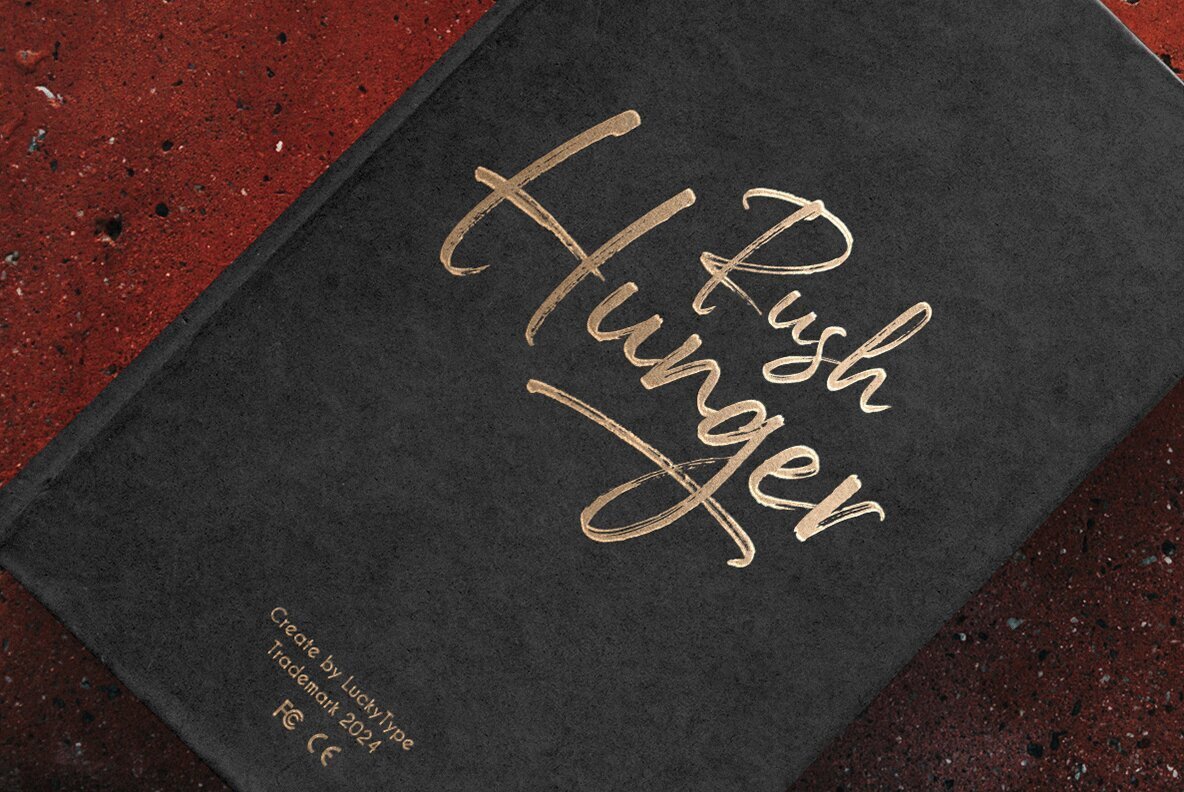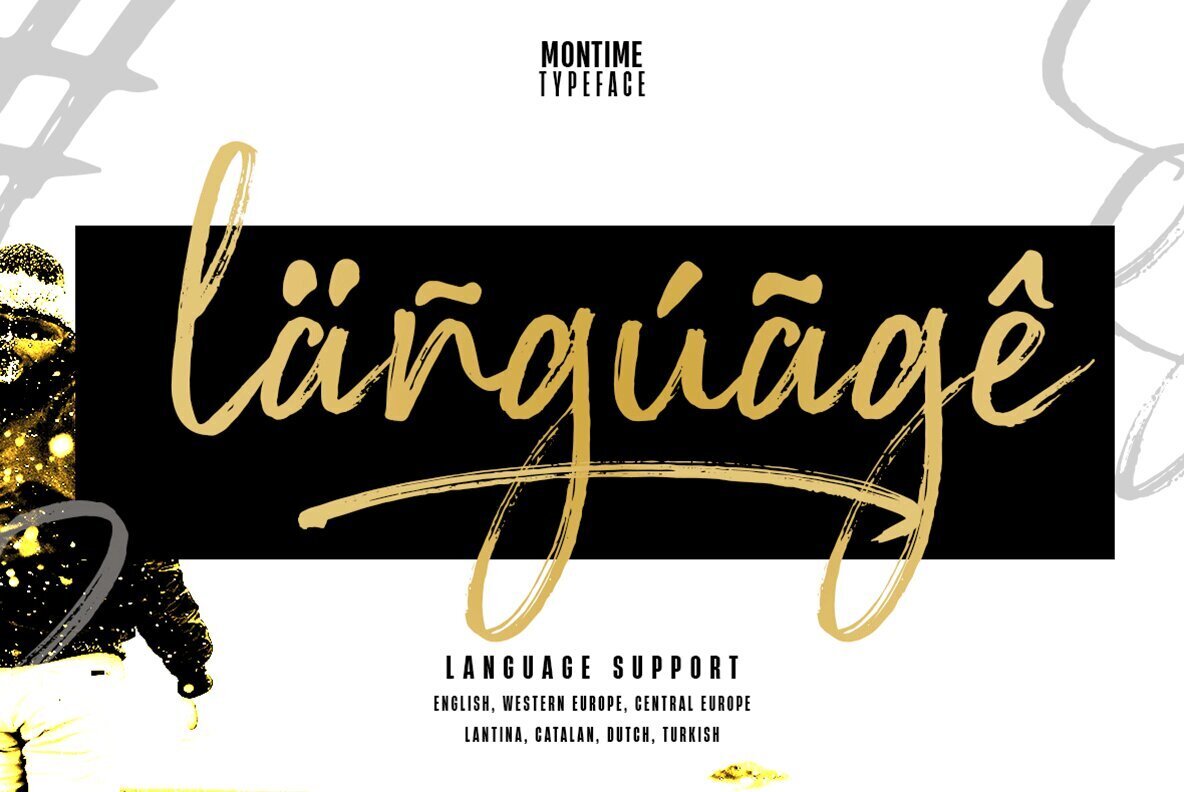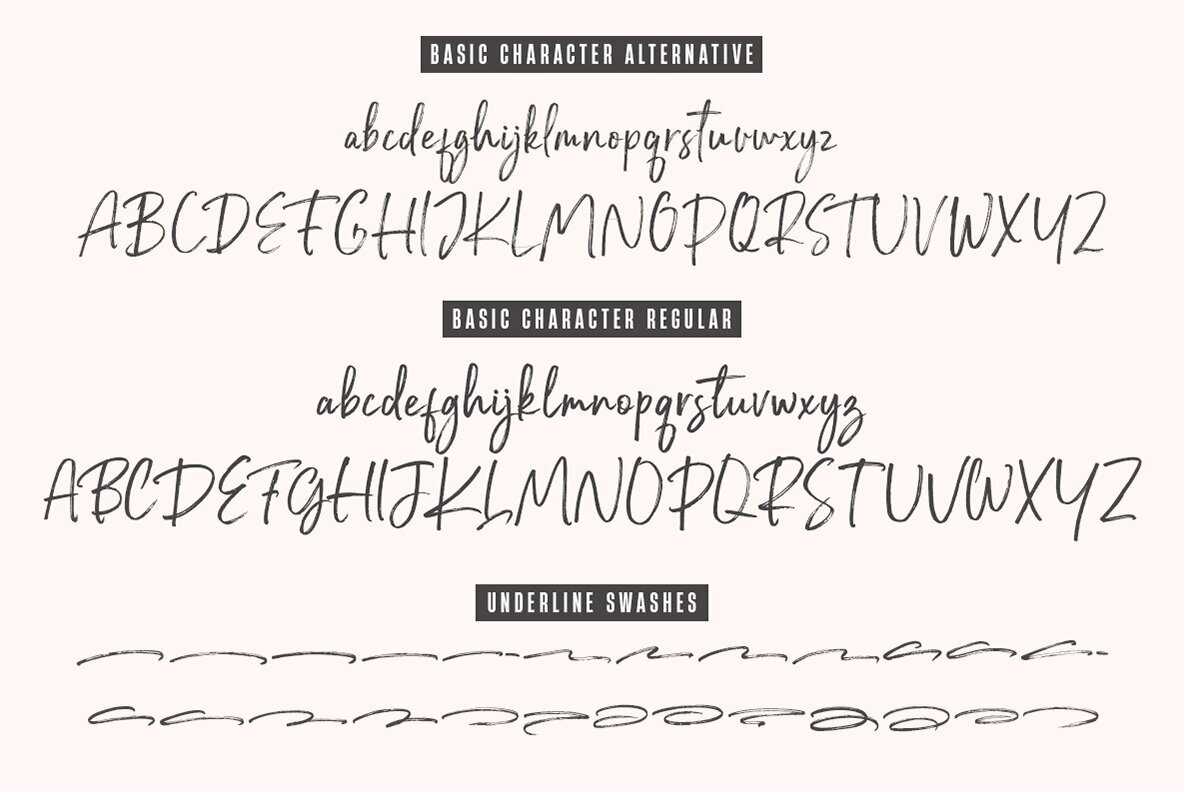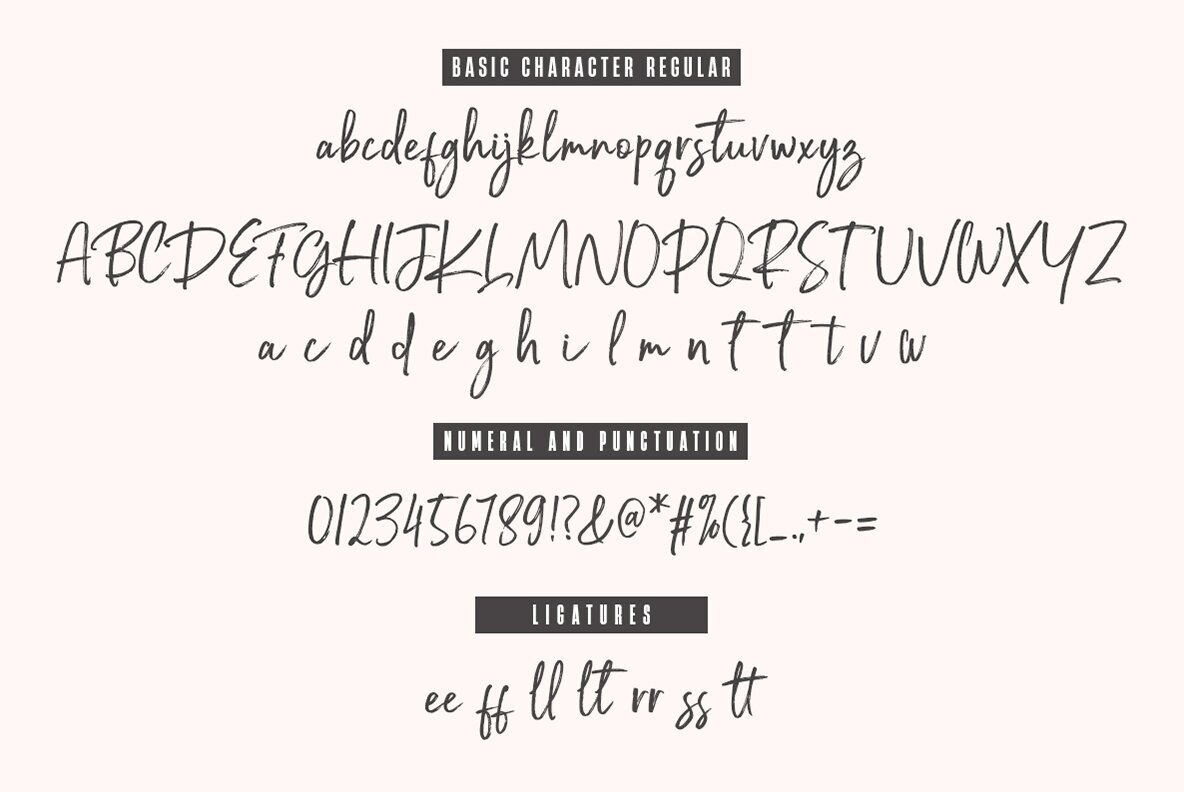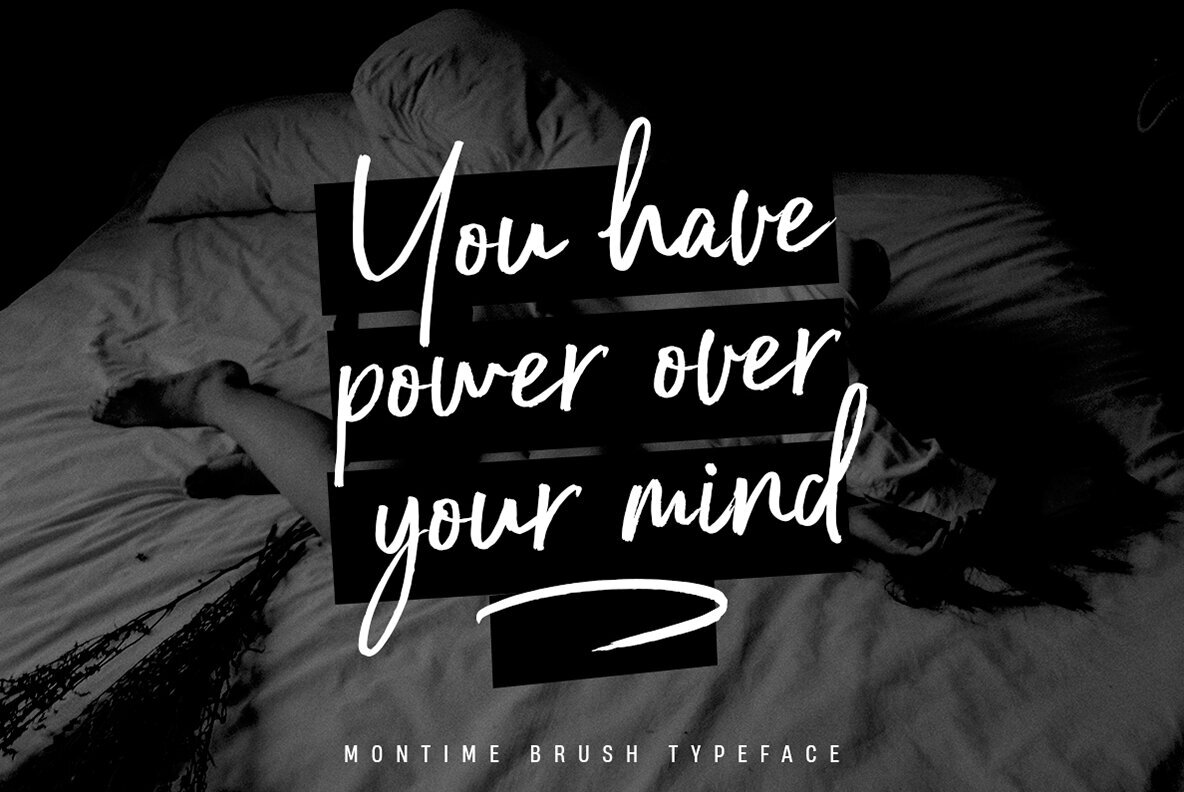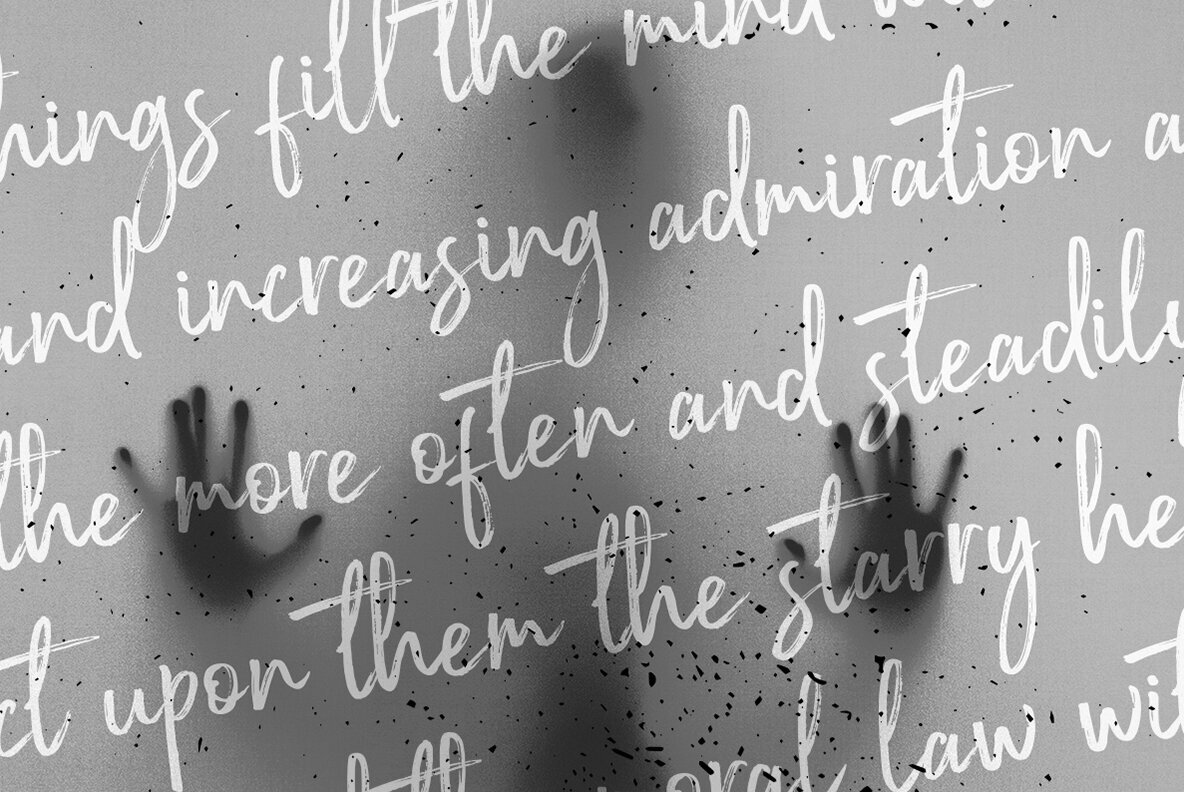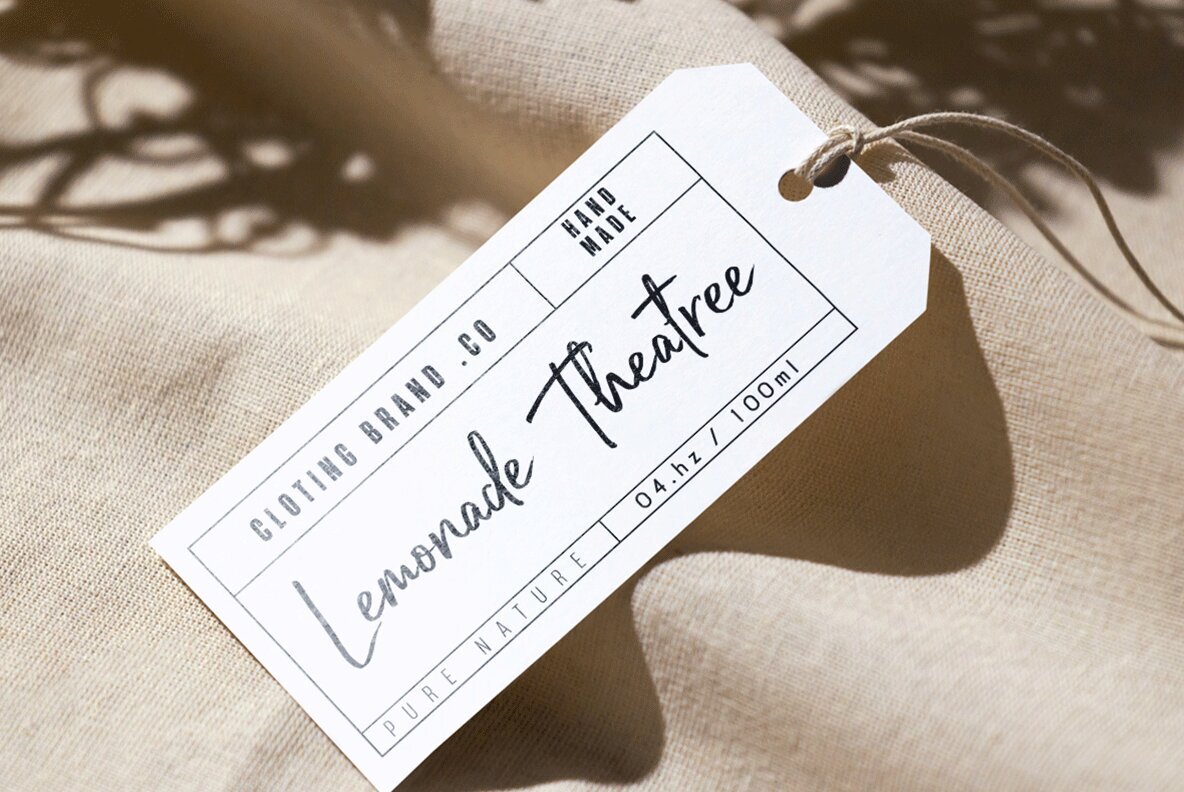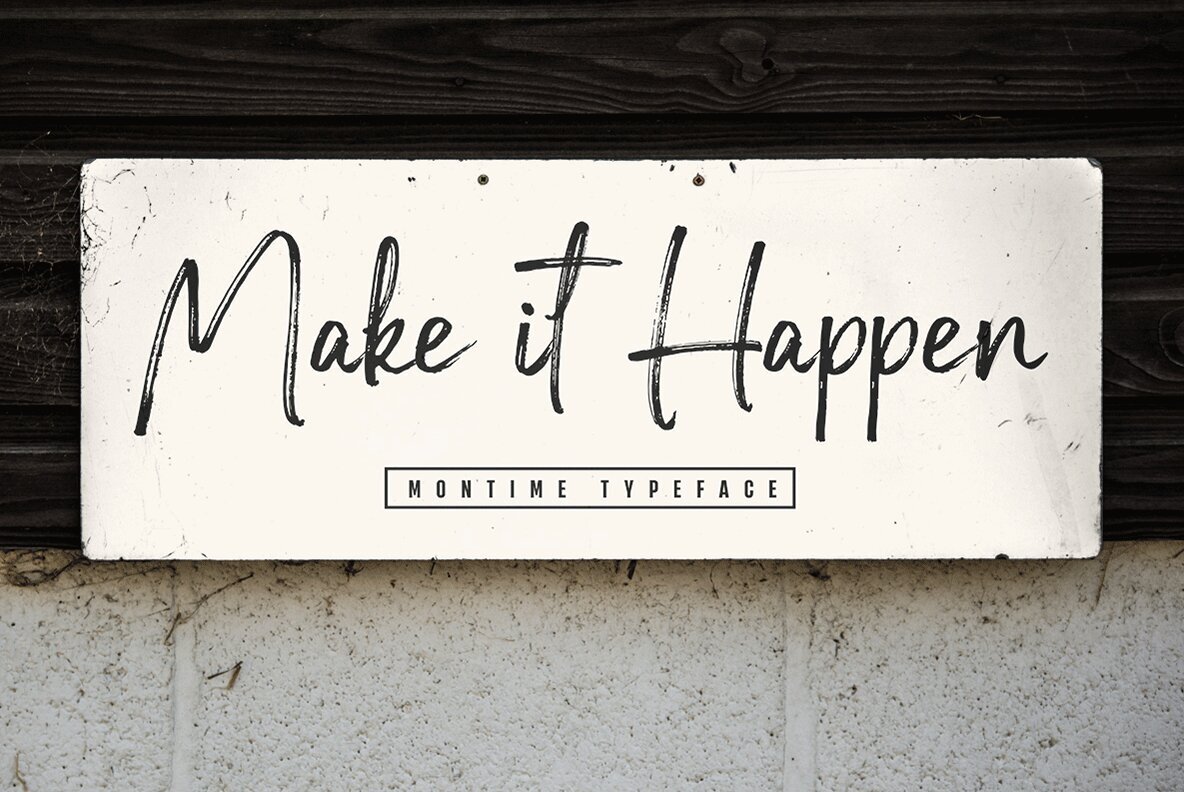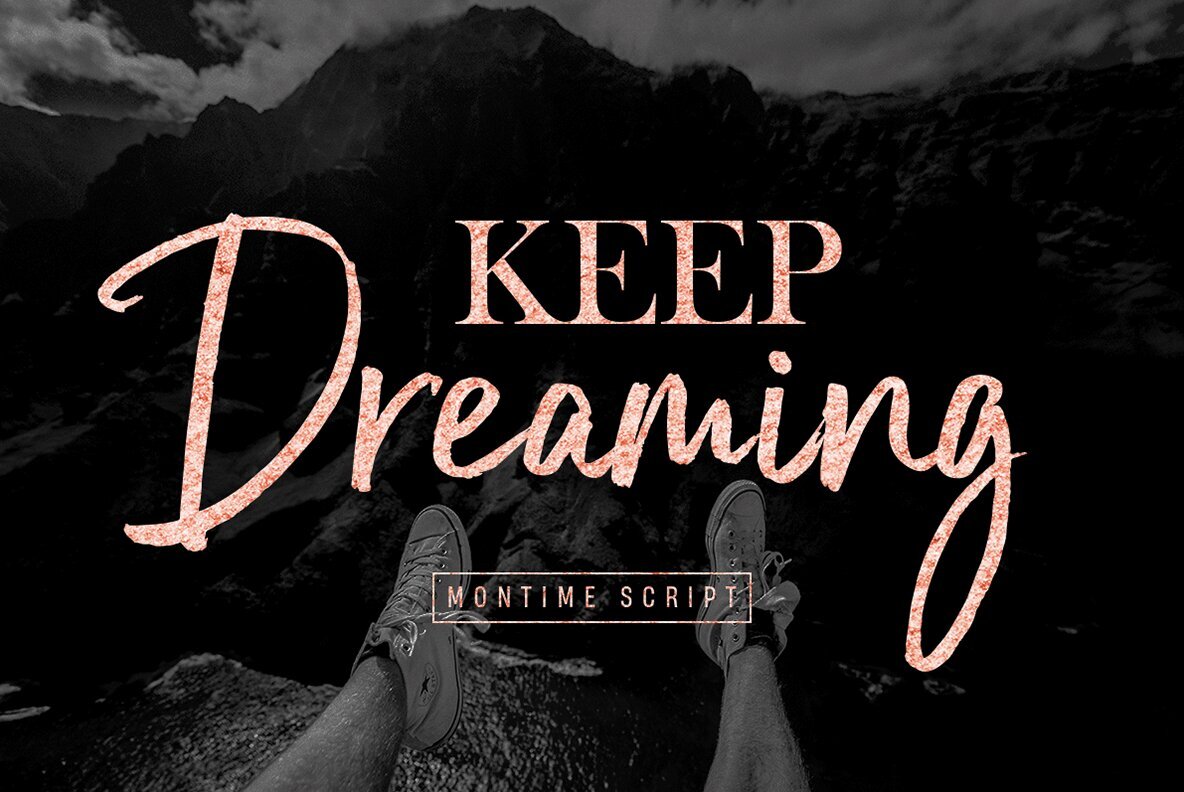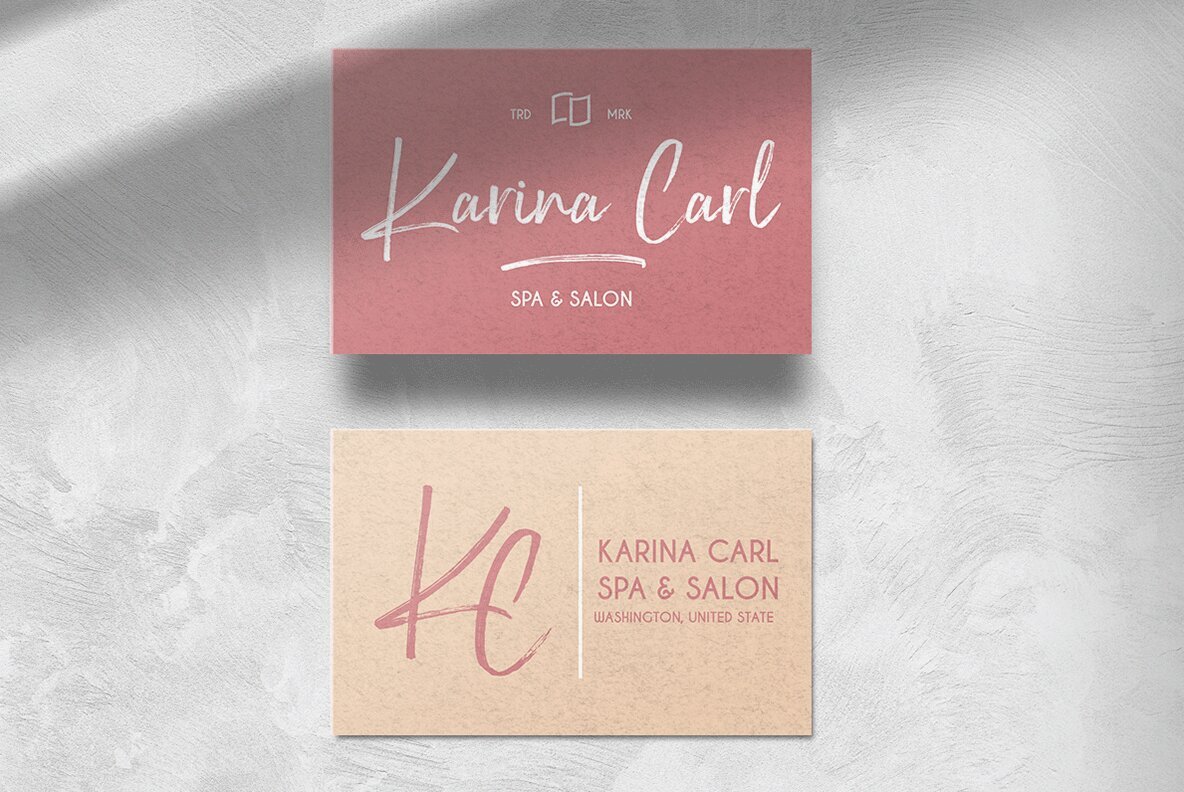
Montime Font
Montime is a distinctive handwritten script font that exudes a personal and organic vibe. Its varied stroke widths and fluid letterforms bring a unique character to any project. Perfect for branding, social media, and invitations, Montime delivers a crafted touch with its natural style. The font includes two variations: Montime Regular and Montime Alternative, each available in a clean version. These versions include unique ligatures that enhance its standout appearance in both digital and print media.
To further elevate your designs, Montime offers 26 swashes in both rough and clean versions, adding versatility and flair to your creative projects. Whether you aim to convey a personalized touch or a crafted elegance, Montime offers the stylistic elements needed to make your designs truly memorable.